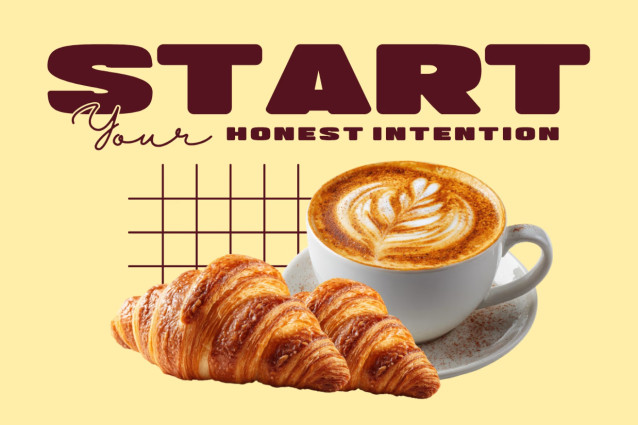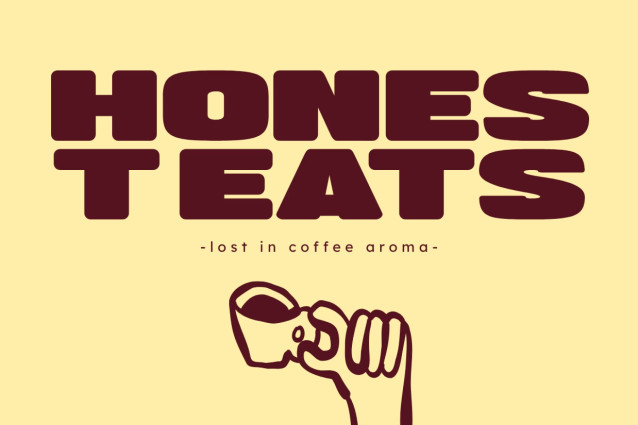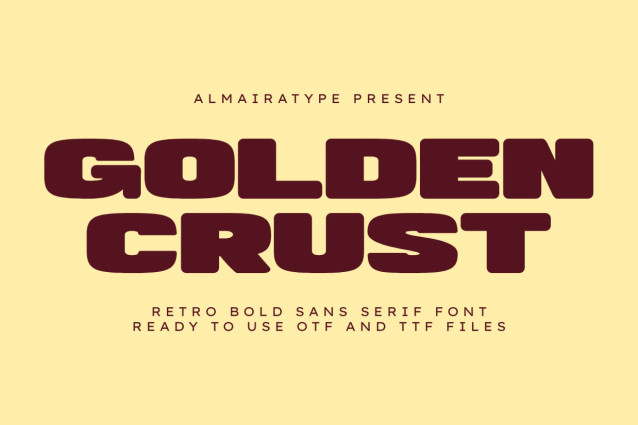
Make a bold, commanding, and delightfully nostalgic statement with Golden Crust, an ultra-bold retro condensed sans serif font engineered for creators who want their headlines to pop with a fun, vibrant charm. Meticulously structured with a heavy display weight, balanced tall geometric baselines, and subtly softened profiles, this versatile font brings an instant blend of vintage warmth and clean modern professionalism to any creative canvas.
Whether you are an apparel designer launching a fresh streetwear collection, a graphic artist establishing a bold commercial food brand, or a high-volume print-on-demand seller optimizing listings for search engine conversions, Sunday Lunch delivers unmatched readability and outstanding shelf appeal. For the crafting community and DIY enthusiasts, every single glyph has been technically polished and vector-optimized to ensure a smooth, effortless cutting and weeding experience on digital cutting machines like Cricut and Silhouette. Bring the powerful, playful, and timeless aesthetic of Sunday Lunch into your commercial design toolkit today!